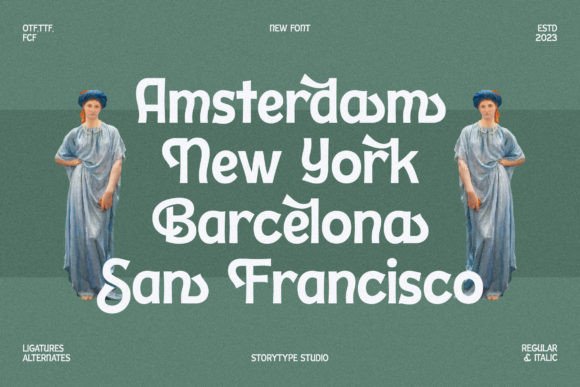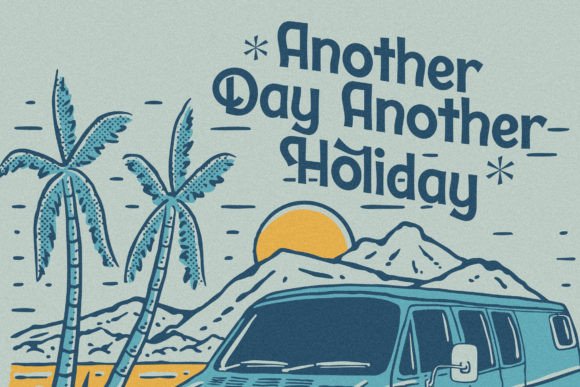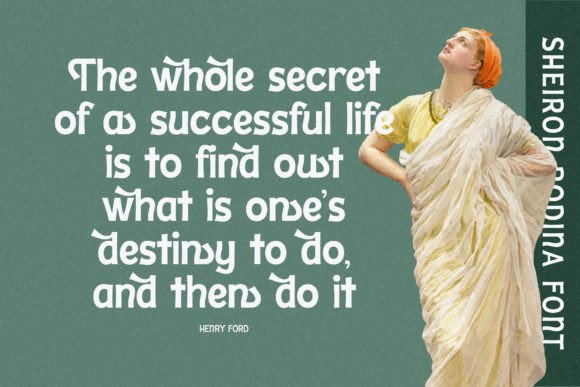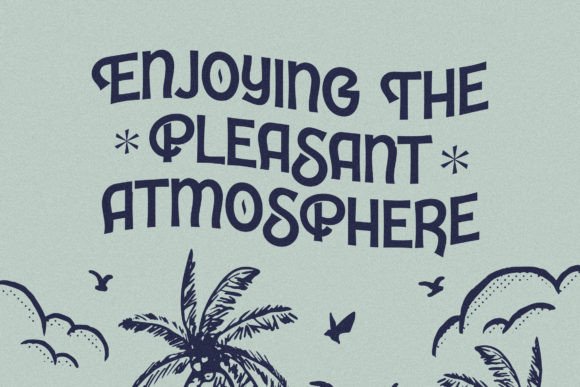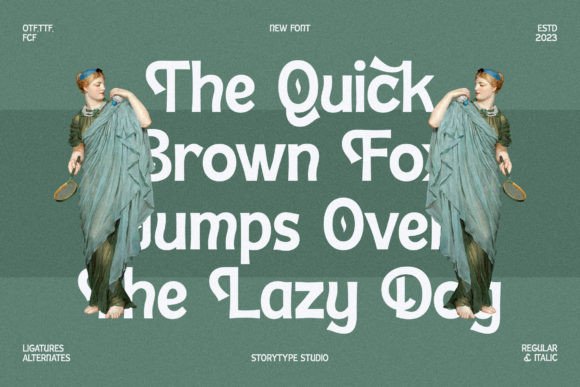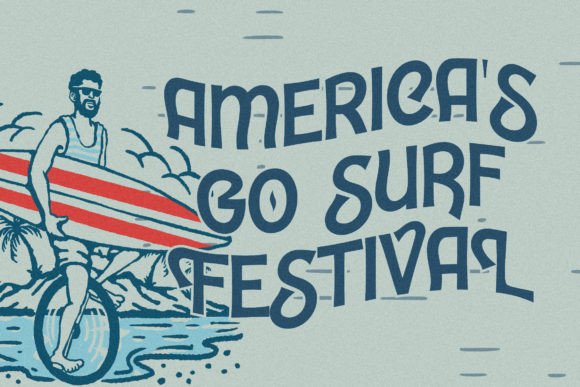
Introduction to Sheiron Rodina Font
Have you ever stared at a blank canvas, waiting for the perfect design to emerge? It’s that moment when creativity strikes, and the world of possibilities unfolds. For designers, this moment is a treasure, and the right font can be the key to unlocking it. One such font that has been gaining attention in the design community is the Sheiron Rodina Font, a modern display serif font that exudes elegance and sophistication.
This high-quality font is a valuable resource for designers working on creative projects that require a touch of luxury. With its refined lines and beautiful letterforms, Sheiron Rodina Font is perfect for designing logos, book titles, fashion brands, and magazine covers. Its versatility makes it an excellent choice for designers who want to add a touch of sophistication to their designs.
Key Features of Sheiron Rodina Font
- High-quality design for creative projects, ensuring a professional and elegant look.
- Transparent background, allowing for seamless integration into various design elements.
- Unique characteristics include a modern and sophisticated design, making it perfect for luxury brands and high-end creative projects.
Honest Review: Sheiron Rodina Font
I recently had the opportunity to work with the Sheiron Rodina Font, and I must say, it’s a great addition to any designer’s toolkit. As a design resource, it offers a high quality and versatile font that can be used in a variety of creative projects.
Here are some of the things that work well with the Sheiron Rodina Font:
- ✨ High quality and clear typography
- ✨ Versatile and can be used in a variety of creative projects
However, I did encounter a few limitations while working with the font:
- ⚠️ Limited character set, which may not be suitable for complex text-based projects
- ⚠️ Not as many style variations as some other fonts on the market
Overall, I’m impressed with the Sheiron Rodina Font and would recommend it to designers looking for a high-quality, free design resource.
The Sheiron Rodina Font is a high-quality design resource ideal for creative projects. With a transparent background, this font is perfect for adding a touch of elegance to your designs.
Tips for Getting the Most Out of Sheiron Rodina Font
To get the most out of the Sheiron Rodina Font, use it in conjunction with other high-quality design resources. This font is perfect for creating visually appealing designs, and with a transparent background, it’s easy to layer with other elements.
The Sheiron Rodina Font is commonly used in creative projects, including:
Logo designs
Brochures and flyers
Business cards
Web design
Sheiron Rodina Font is a solid font without a transparent background. However, it’s designed to be easily editable and customizable, allowing you to create a transparent background effect if needed.